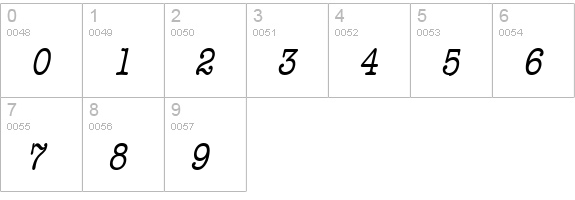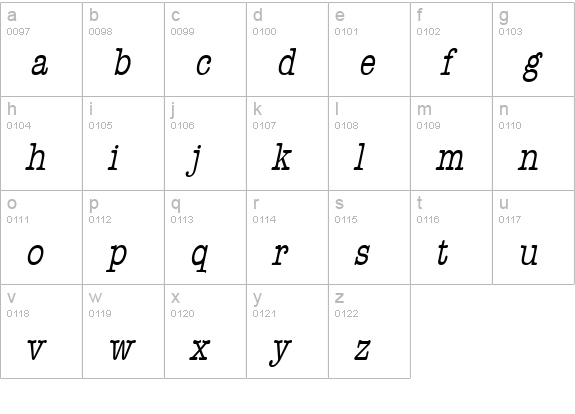
Headline Thin Italic is a delicate, low-contrast, italic variant in the Headline typeface family \xE2\x80\x94 well suited to fashion editorial, minimal branding, and high-contrast display.
Introducing Headline Thin Italic, a sophisticated and elegant font that is perfect for adding a touch of finesse to your designs. With its slender and delicate strokes, this font exudes a sense of refinement and modernity. Whether you are designing a logo, creating a stylish headline, or crafting a sleek invitation, Headline Thin Italic is the ideal choice to elevate your design to a whole new level. This font features a unique and captivating italic style, adding a subtle sense of flair and movement to your text. Its thin and sleek letterforms create a harmonious balance between elegance and readability, making it versatile for a wide range of design projects. From fashion magazines to luxurious branding, Headline Thin Italic effortlessly captures attention and leaves a lasting impression. One of the best things about Headline Thin Italic is that it is freely available to download at FontsMarket.com. This means that you can easily access this stunning font and start incorporating its beauty into your designs without any hassle. With its high-quality and professional design, Headline Thin Italic offers immense value to both seasoned designers and beginners alike. So why wait? Download Headline Thin Italic today and experience the power and sophistication it brings to your design projects. Unleash your creativity and let this font become your secret weapon for creating stunning visuals that stand out from the crowd. FontsMarket.com is your go-to destination for free font downloads, providing you with a vast library of high-quality fonts like Headline Thin Italic. Don't miss out on this opportunity to enhance your design journey with a font that truly makes a statement.